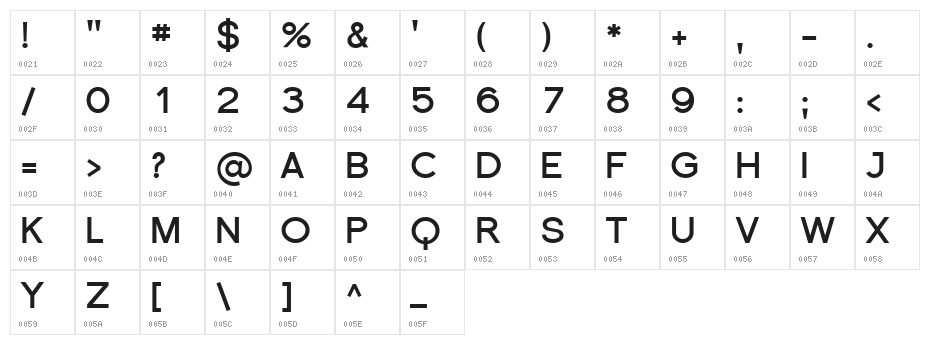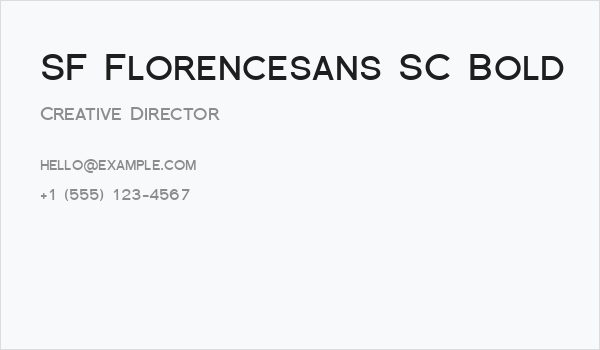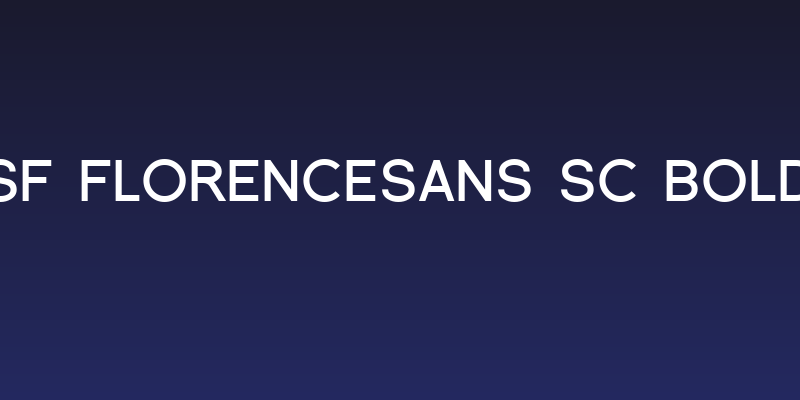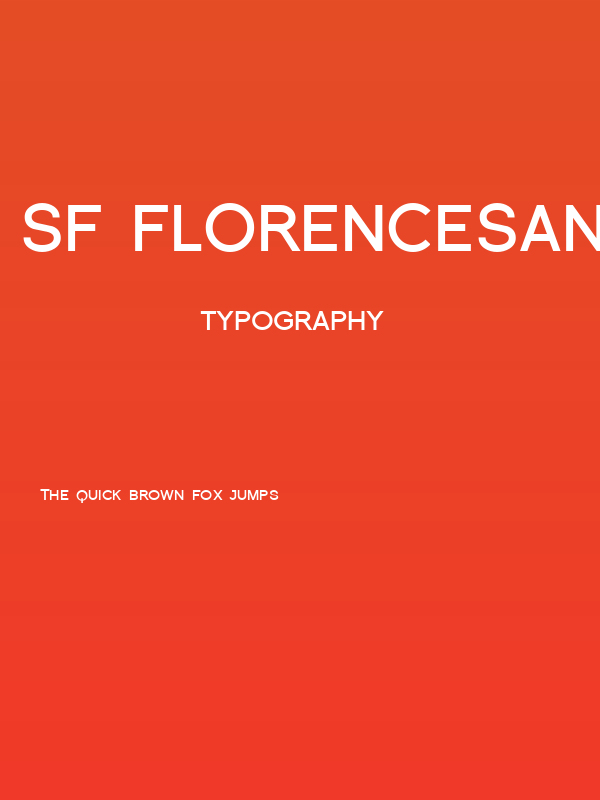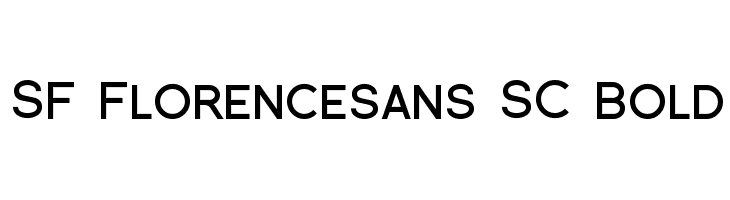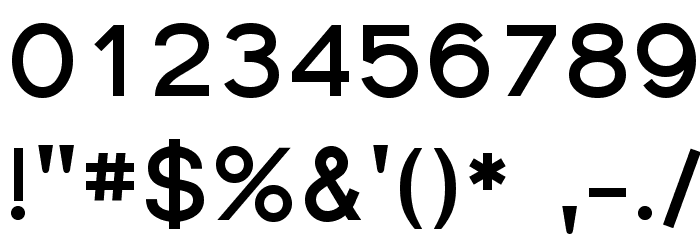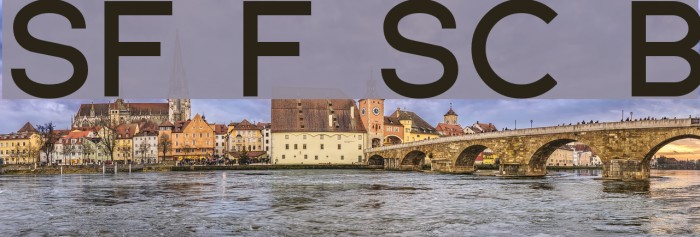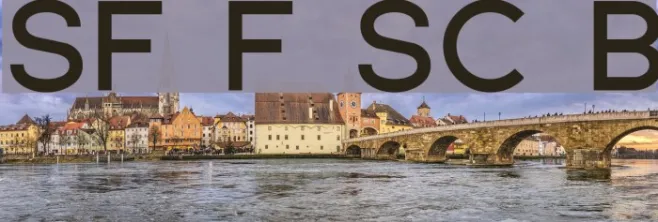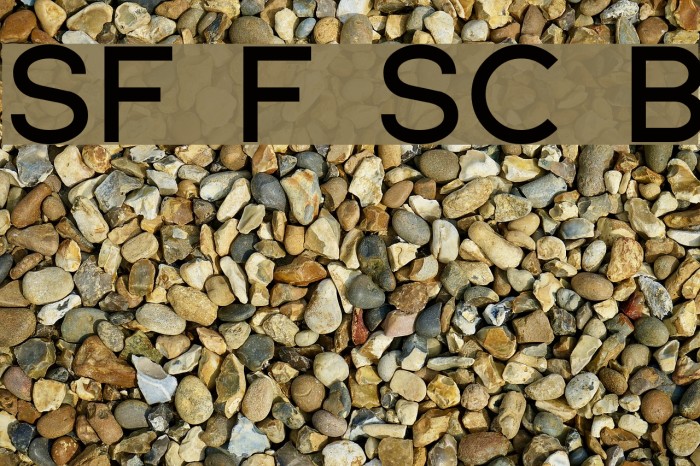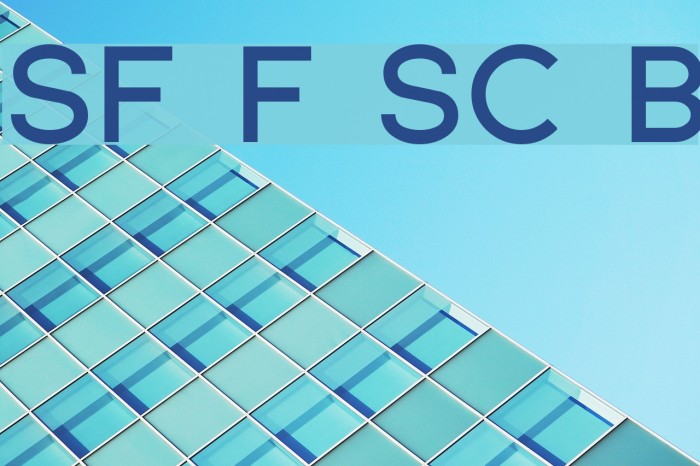
SF Florencesans SC Bold Font
SF Florencesans SC Bold Description
This font features a clean and modern sans-serif design with bold, uniform strokes that convey a sense of strength and clarity. The characters are well-proportioned, with a consistent height and width that enhances readability. The uppercase letters are slightly taller than the lowercase, maintaining a balanced appearance. The numerals are clear and distinct, making them ideal for both text and numerical data. Special characters are designed with precision, ensuring they integrate seamlessly with the rest of the font. The overall style is minimalist, making it versatile for various applications.
| Use Case | Headlines, Logos, Signage |
| Proposed Projects | Ideal for branding, headlines, signage, and digital interfaces where clarity and impact are essential. |